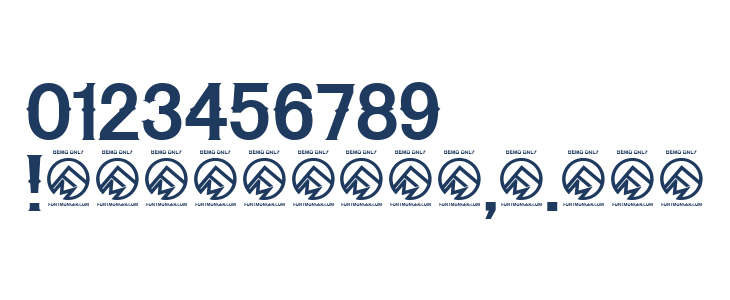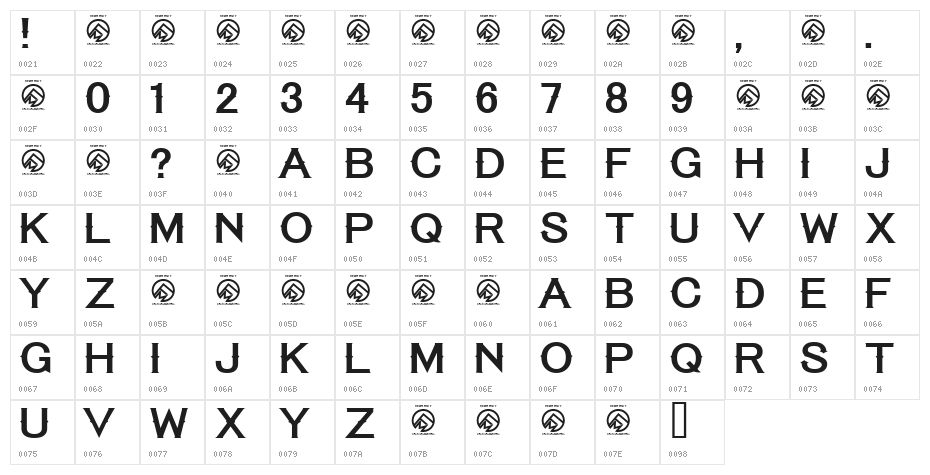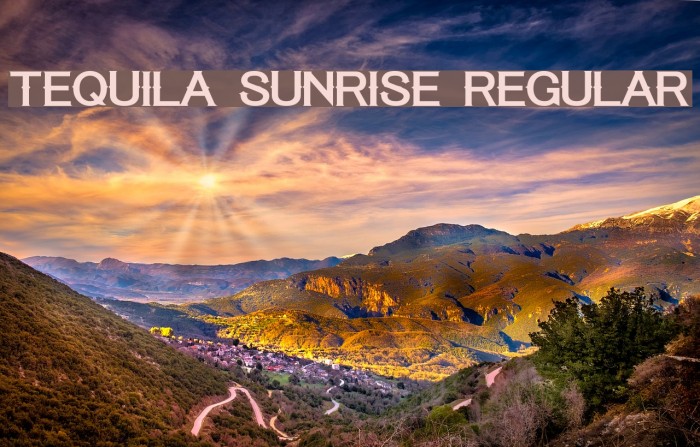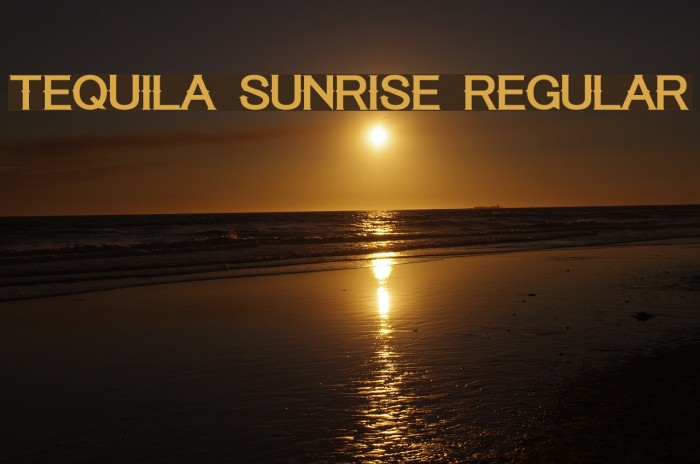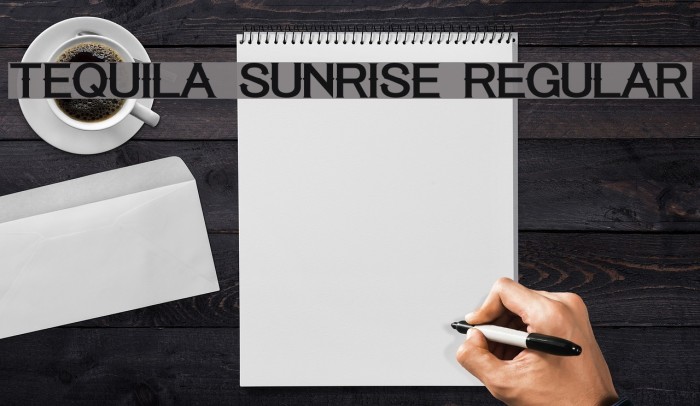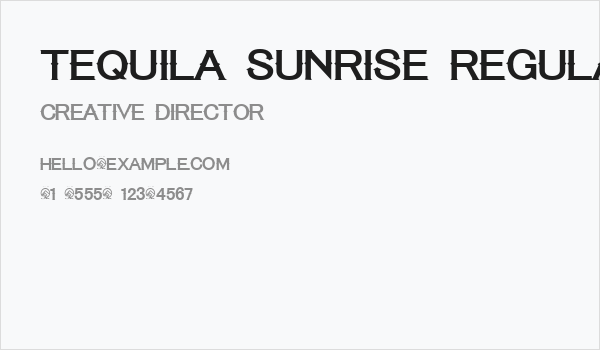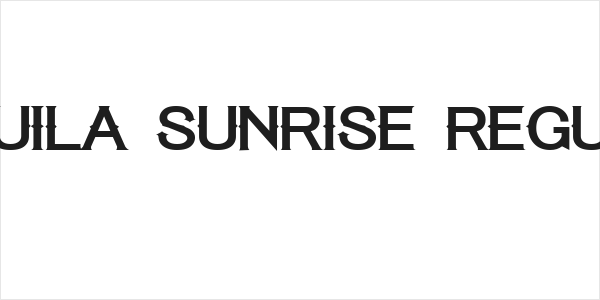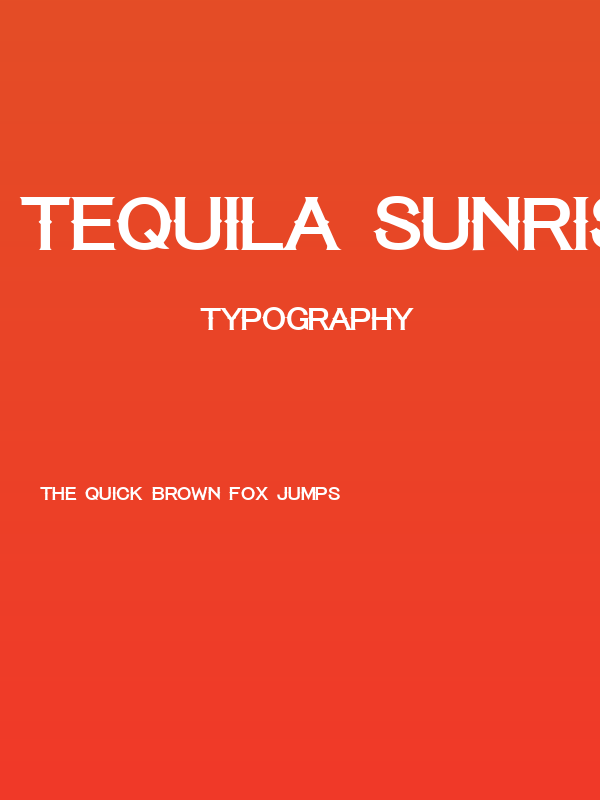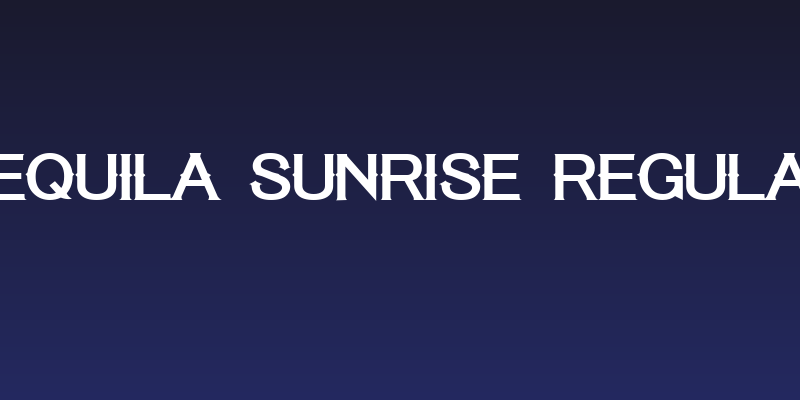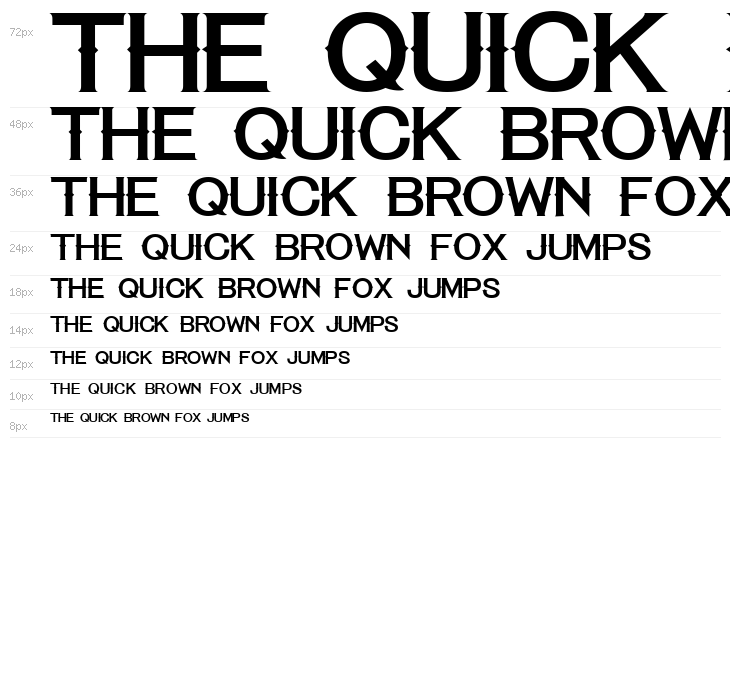
Tequila Sunrise Regular Font
Tequila Sunrise Regular Description
This font features a bold and striking design with strong, angular serifs and a modern aesthetic. The uppercase letters are uniform in height, with a consistent stroke width that gives a sense of stability and strength. The numbers are similarly bold, with a geometric influence that complements the overall style. The special characters maintain the same boldness and angularity, ensuring consistency across all glyphs. This font is well-suited for making a strong visual impact, with its high contrast and distinctive style.